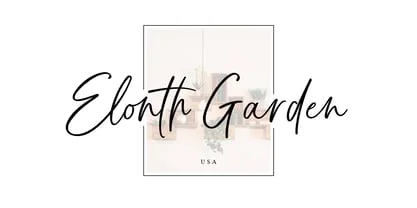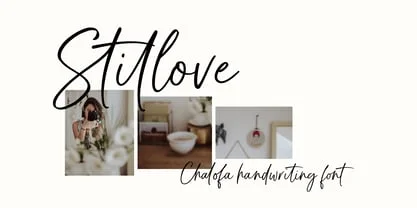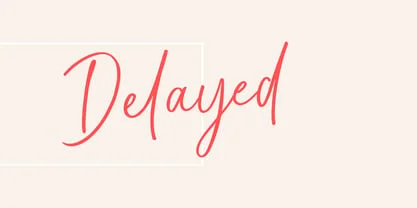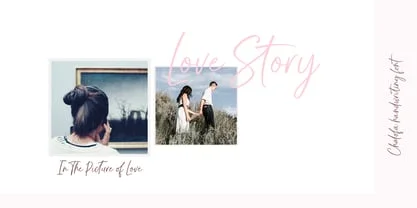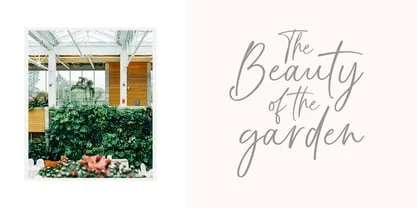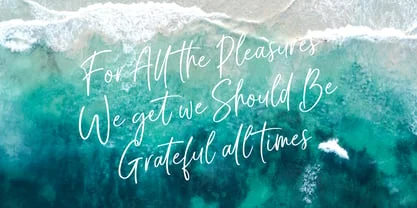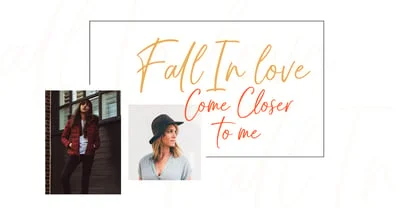
Chalofa Font
Few typefaces manage to balance refined proportions and careful stroke modulation with genuine day-to-day practicality. Chalofa is one of them. The typeface brings an elegant, calligraphic sensibility to a broad range of creative disciplines, with the kind of restraint that lets content lead that holds up whether the work is print-first or screen-first.
In practice, Chalofa proves particularly effective for feminine branding, high-end cosmetic packaging, logo design, wedding invitations, product labels. Designers reaching for it find that the type decisions feel resolved rather than laboured — a useful quality when client timelines are tight.
The range of applications extends to perfume labels, packaging design, boutique logos, social media graphics. That breadth is deliberate: the proportions and spacing were stress-tested across a wide range of mock briefs before the typeface was finalised.
Motion designers building title sequences and lower thirds find Chalofa a reliable choice for projects that demand both personality and restraint. The design avoids the self-conscious quirkiness that dates quickly, settling instead for considered distinctiveness that holds up over time.